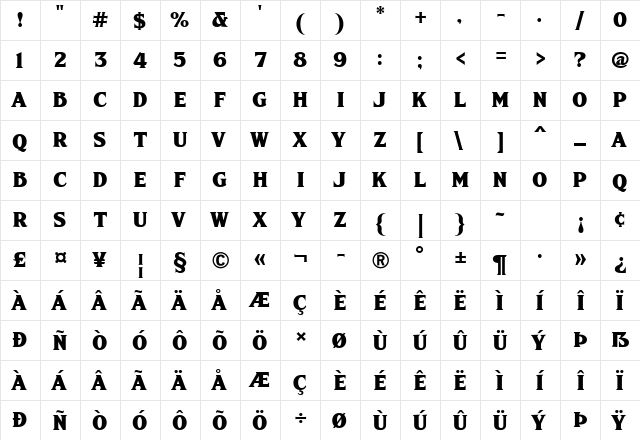
FHA Sign DeVinneNC Regular
| Foundry | Michael Adkins and James Stirling |
| Designer | Michael Adkins and James Stirling of the Fontry tm |
Design Context for FHA Sign DeVinneNC Typeface
FHA Sign DeVinneNC takes a measured approach to typography — its balanced proportions and neutral character make it a reliable workhorse for both digital and print work.